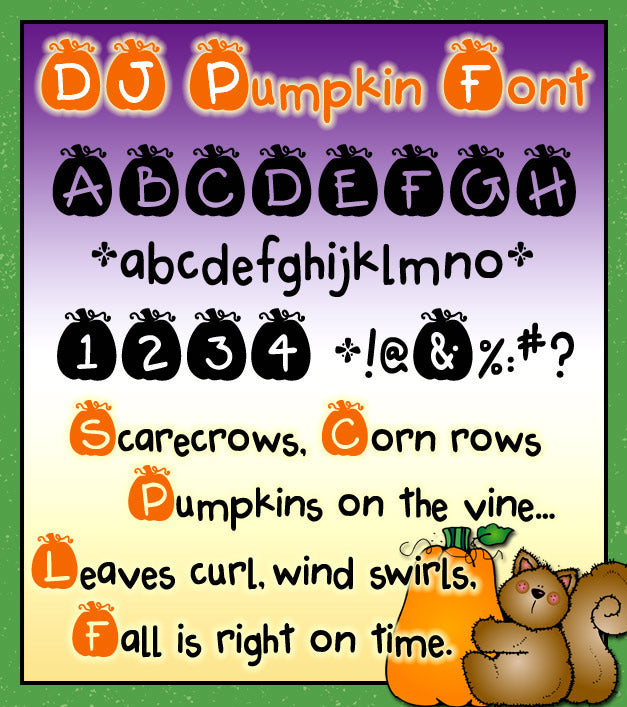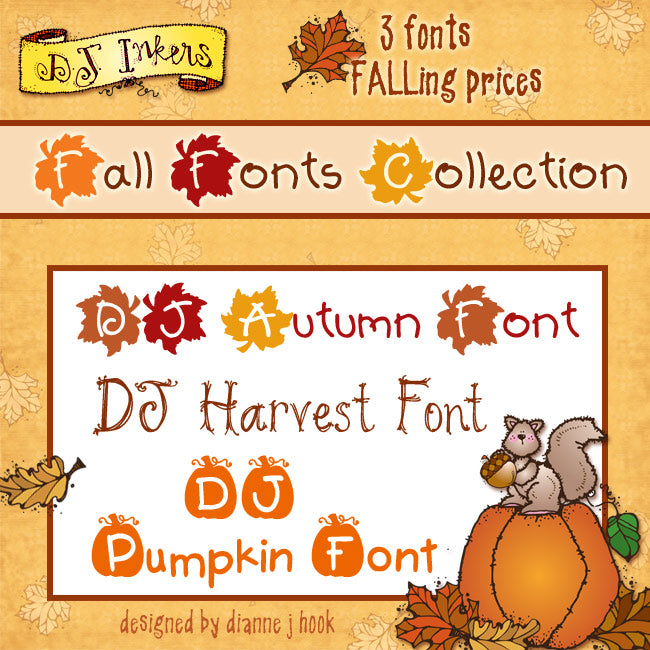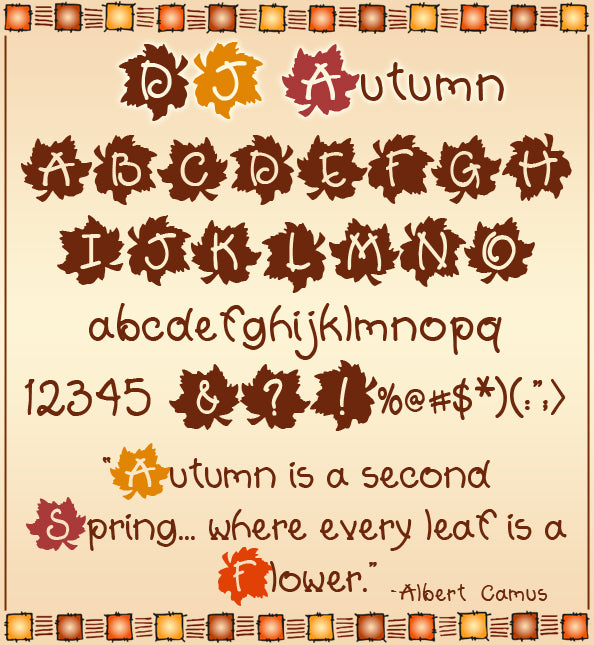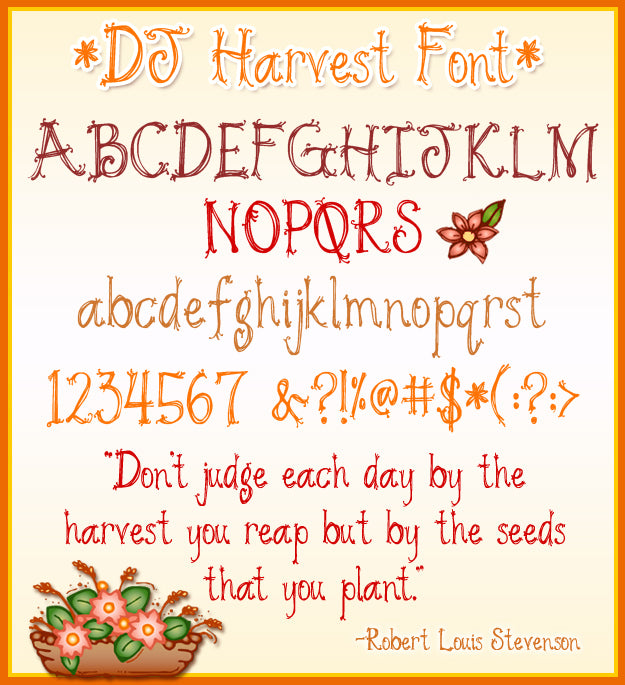
DJ Fall Fonts Collection - 3 Font Bundle
We've raked-up 3 delightful autumn fonts to help you create seasonal smiles... and enjoy a great deal by buying them together! DJ's fabulous Fall Fonts Collection includes: DJ Autumn, DJ Harvest and DJ Pumpkin fonts. Also sold separately, but this set saves you a bundle.